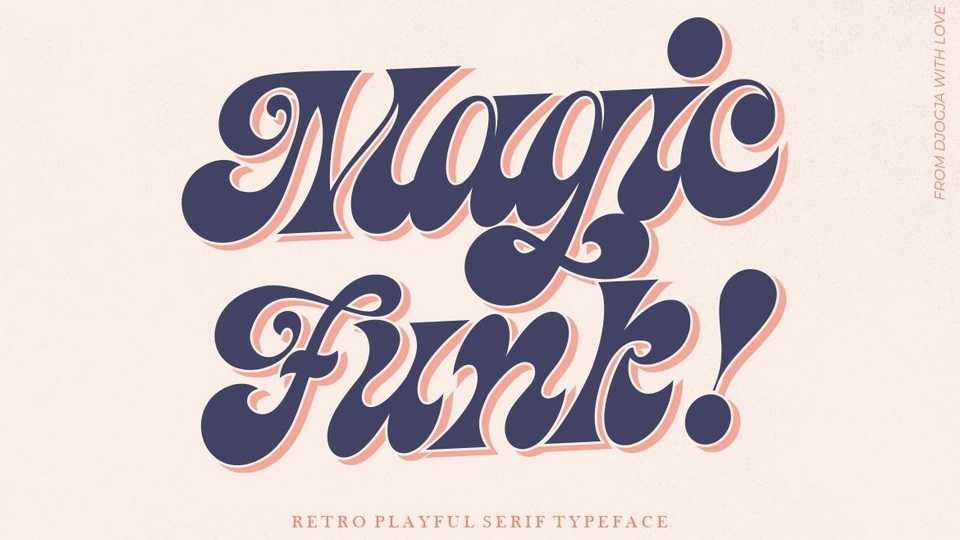
Download Magic Funk font, a bold unique and playful serif typeface that had that groovy 70s feel. Magic Funk is perfectly into those nostalgic moodboards and vintage logos.